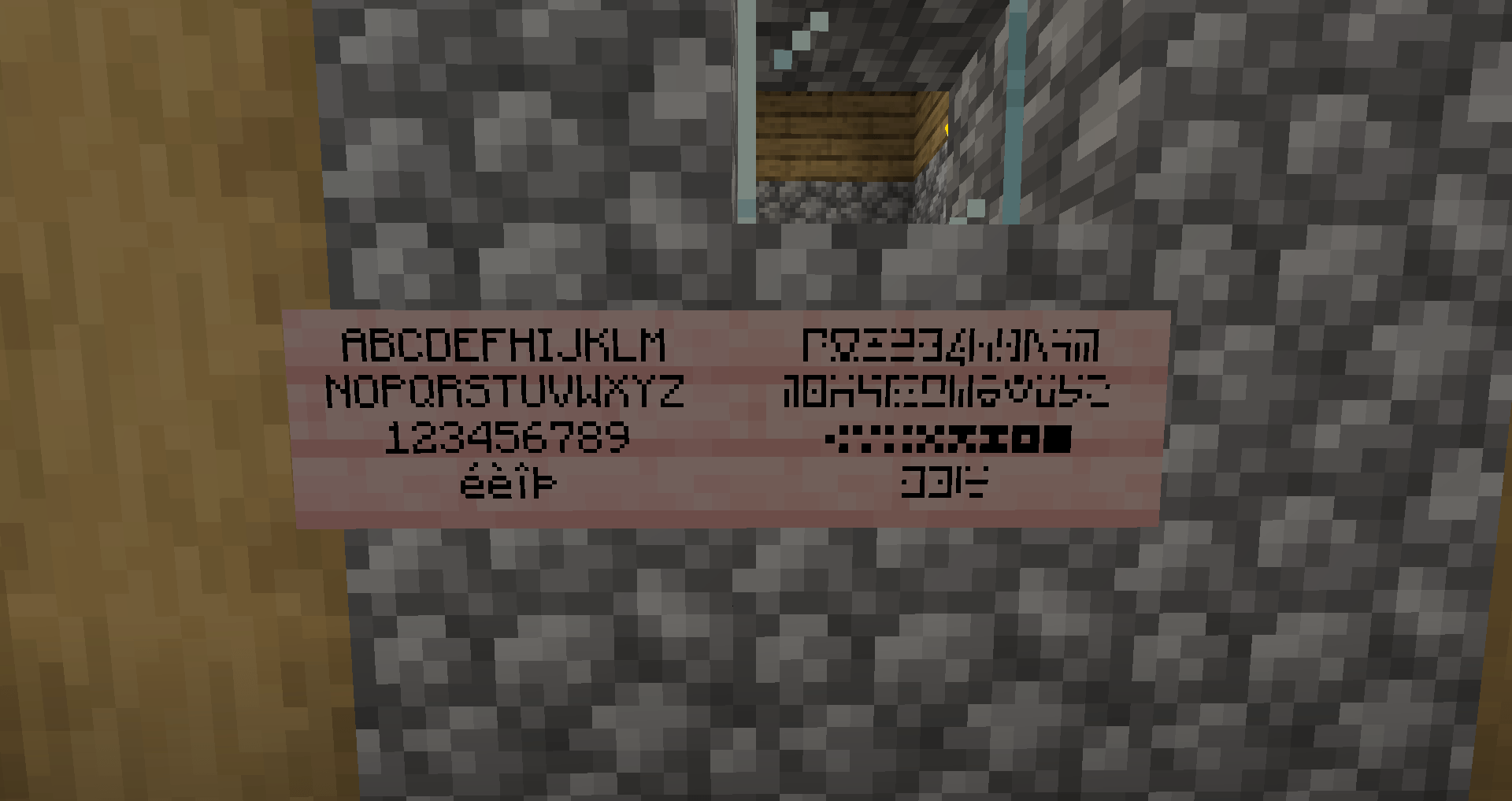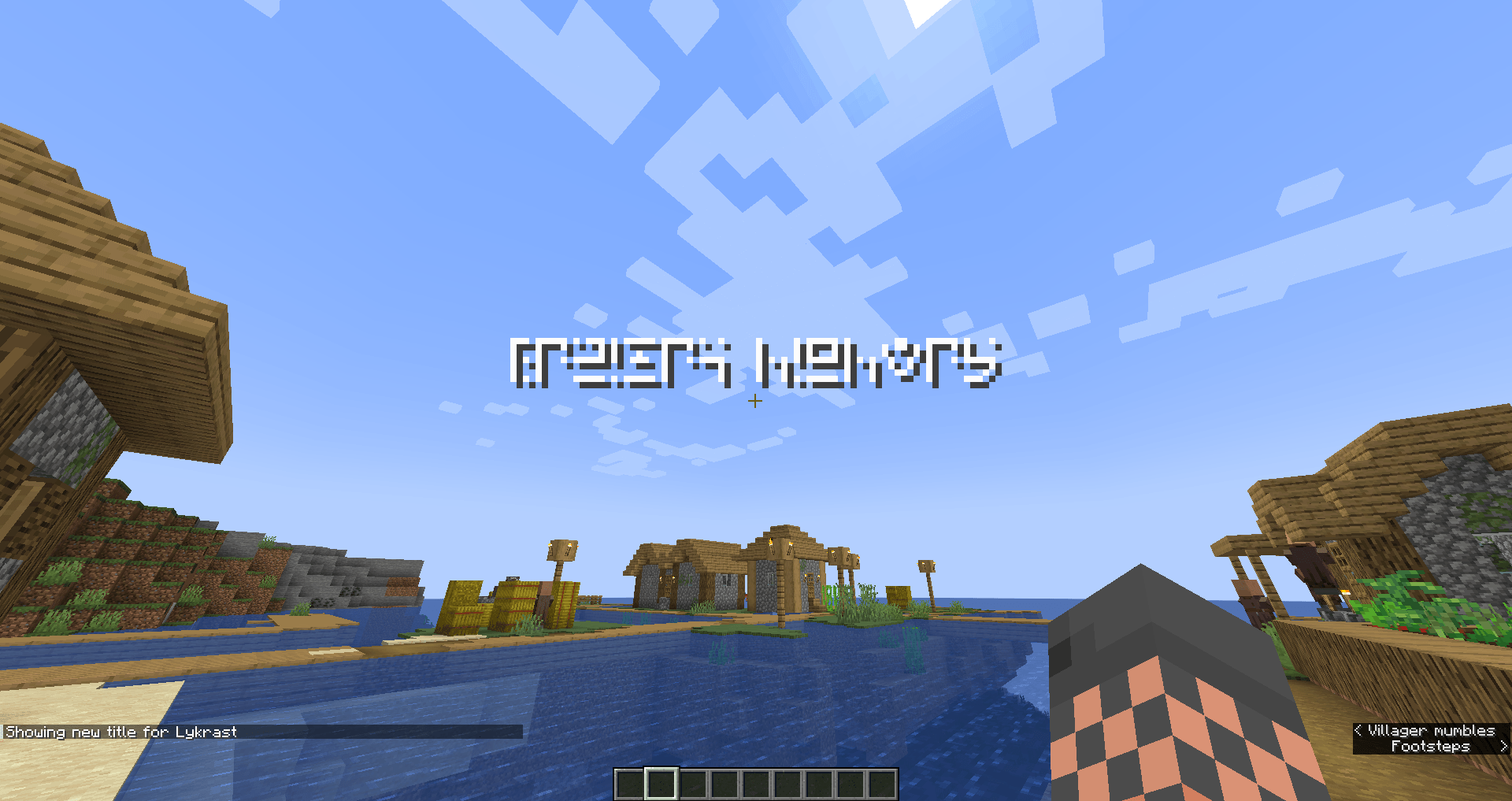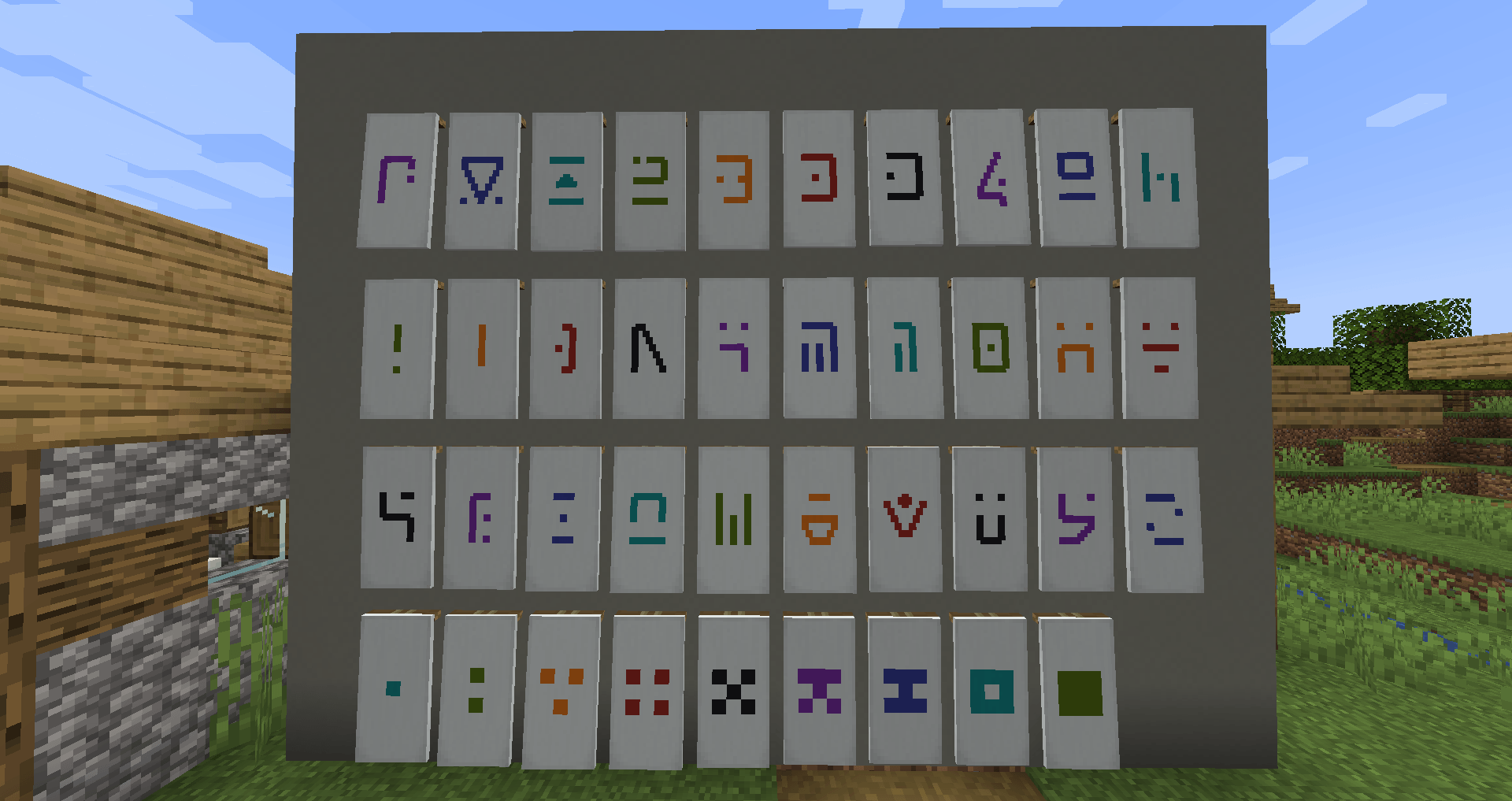
Stray Robot Font
Adds the alphabet used by robots from Stray as a font and banner patterns.
This mod adds a font based on the alphabet used by the robots from Stray, as well as 39 banner patterns based on its characters.
The font can be used by any JSON text (it has id strayfont:stray), such as with the /tellraw or /title commands on in custom item names. If you have Bookshelf, you can also use the /bookshelf font command for easy uses.
The font supports:
• All 26 latin letters A to Z (upper and lowercase are displayed the same),
• Arabic numerals 1 to 9 (not 0),
• Alternate variants of E, I, and P, mapped to é, è, î, and Þ (upper and lowercase are displayed the same).
• While in Stray there is a second alternate I, the resolution here is not high enough to distinguish it, so only one alternate is included.
Screenshot of all 40 banner patterns in various colors.